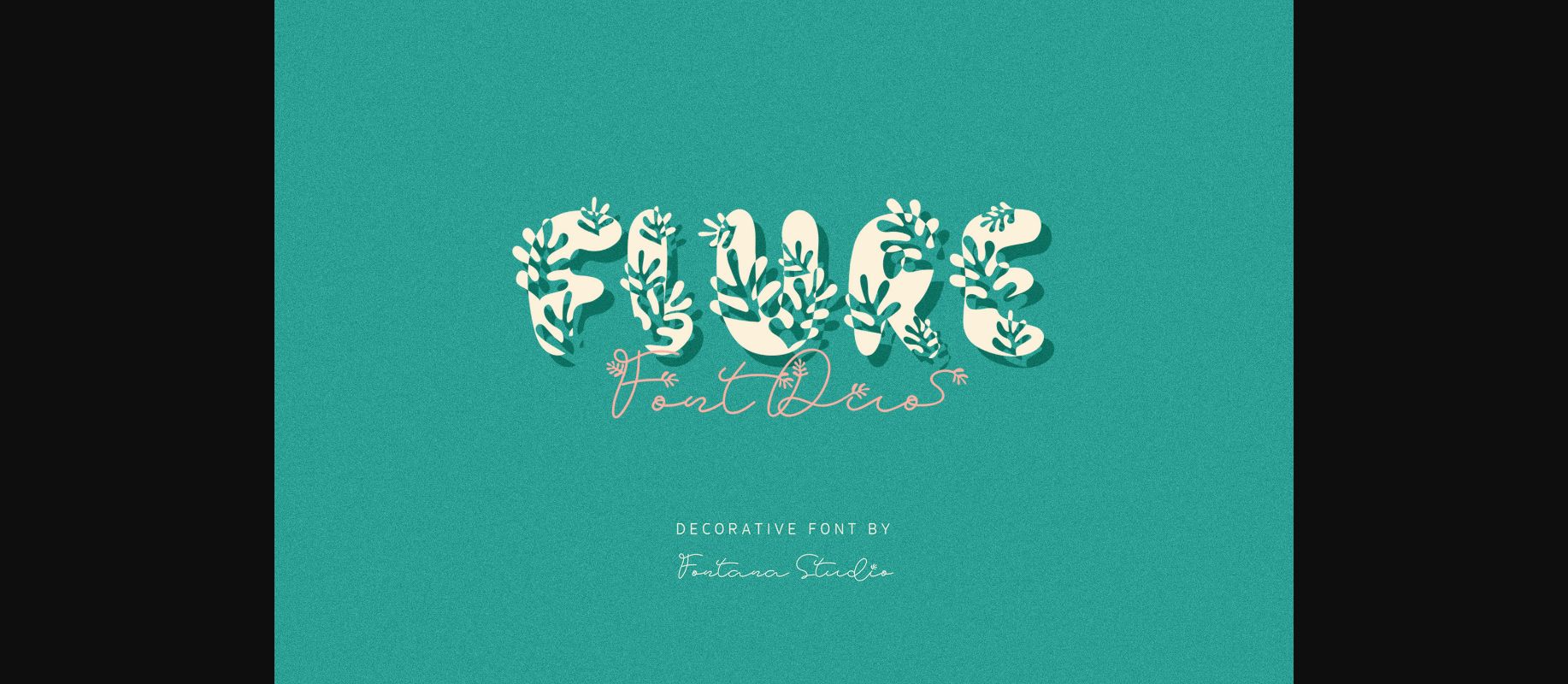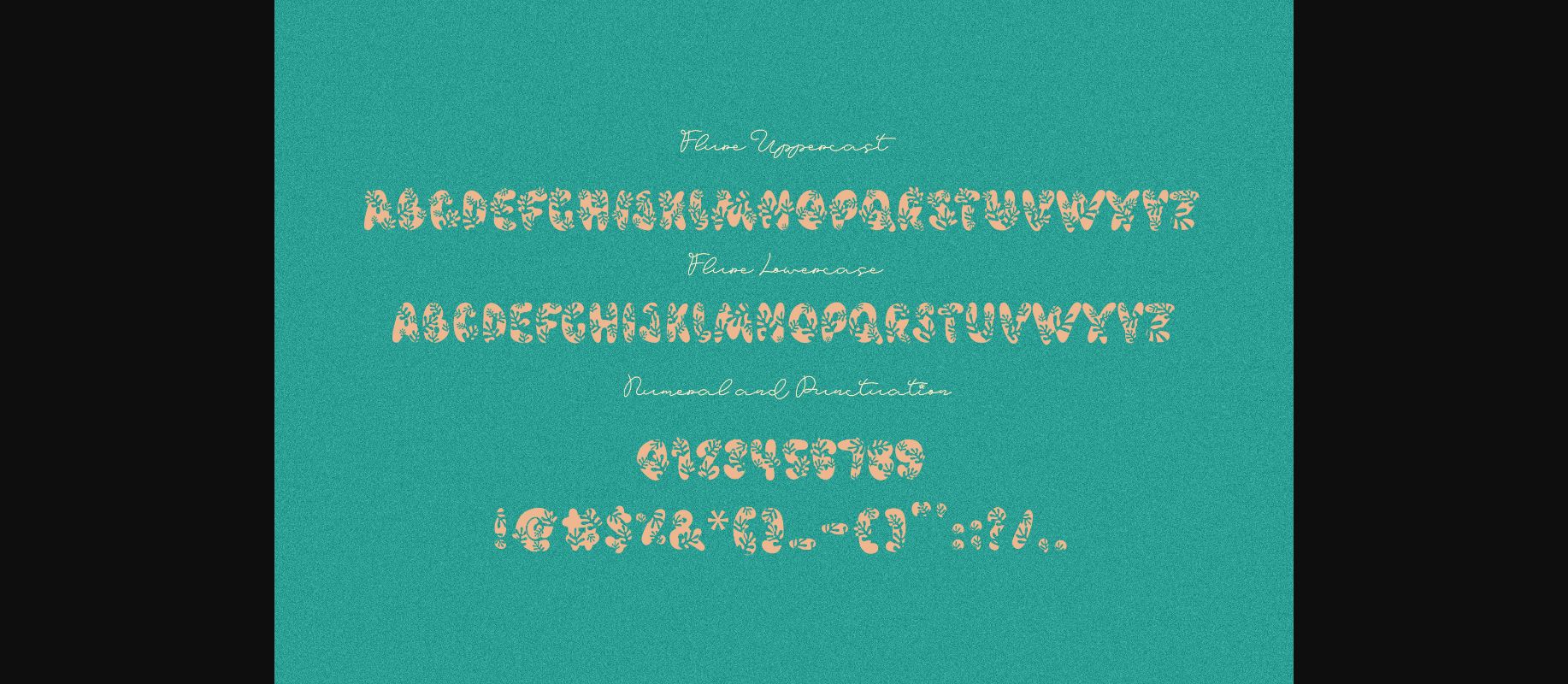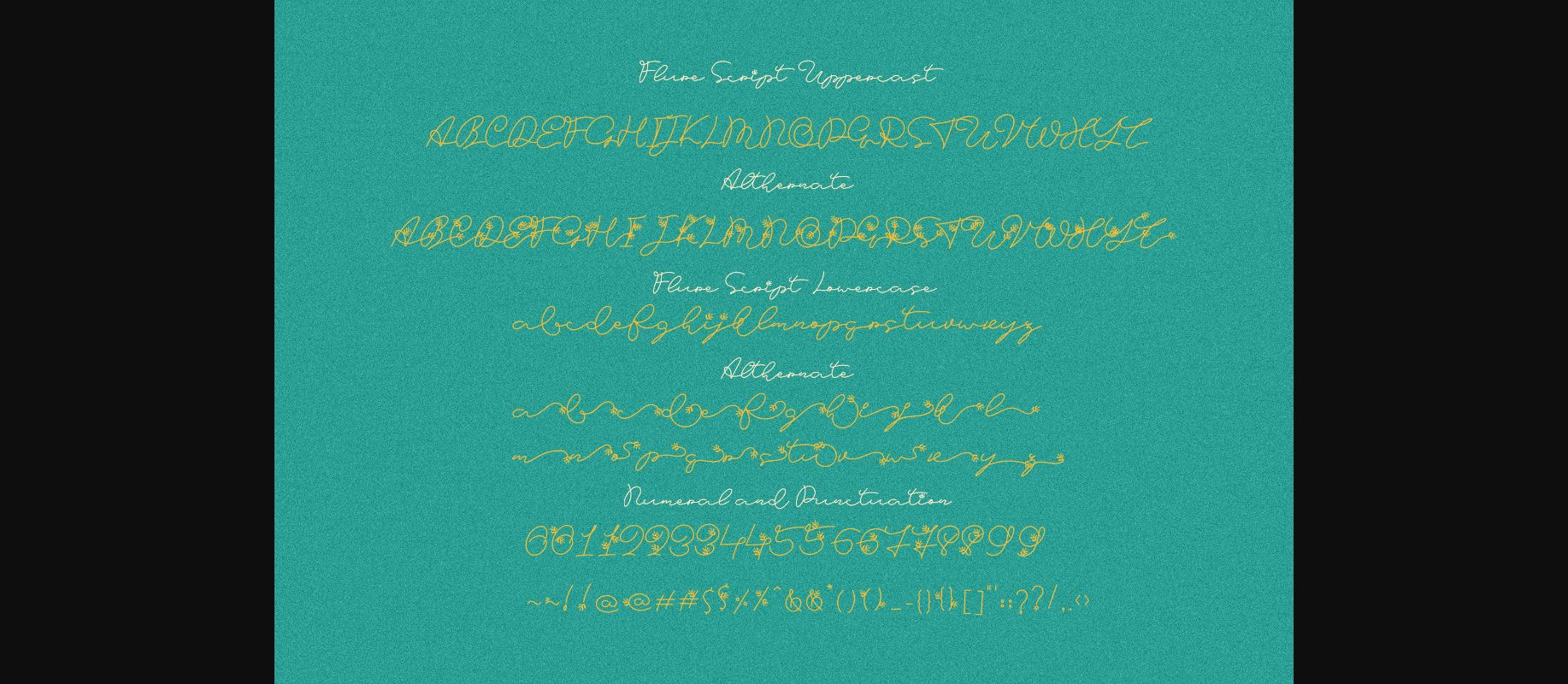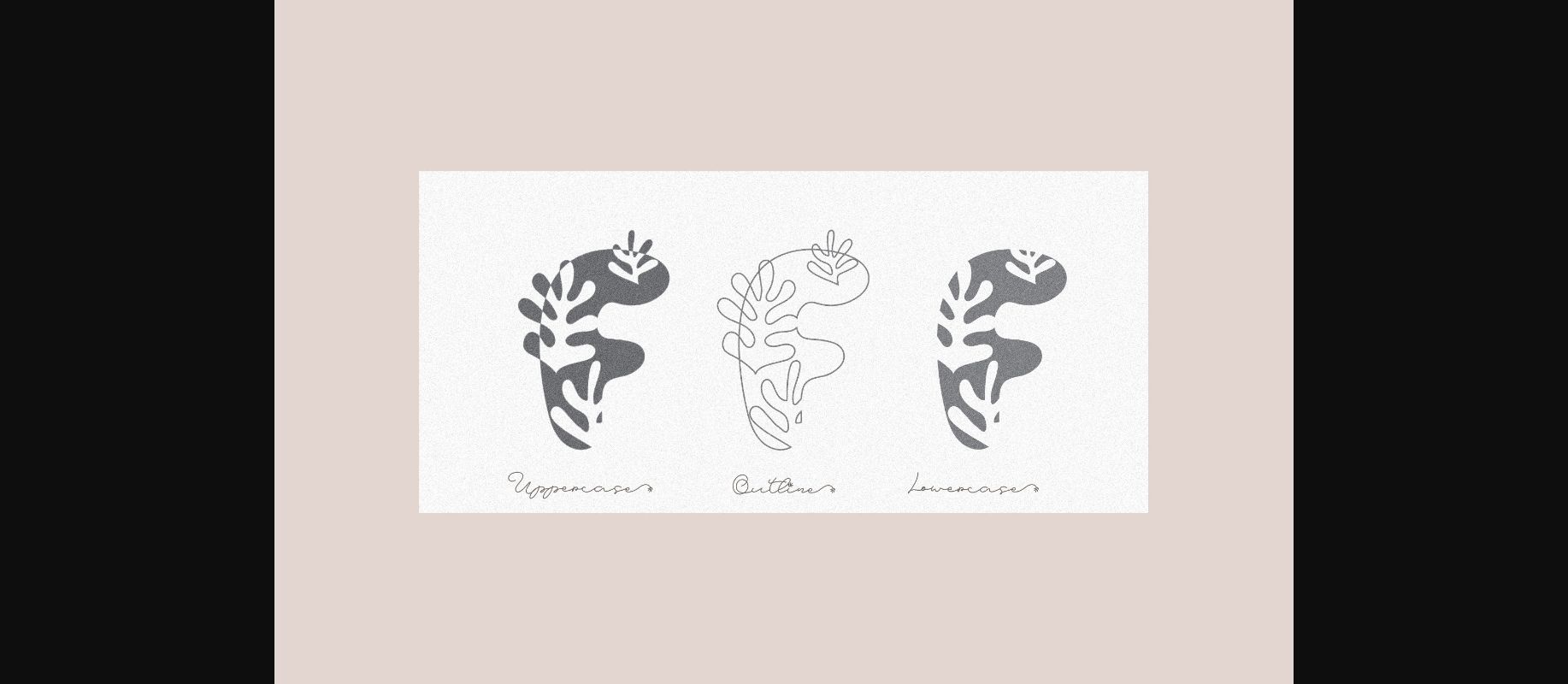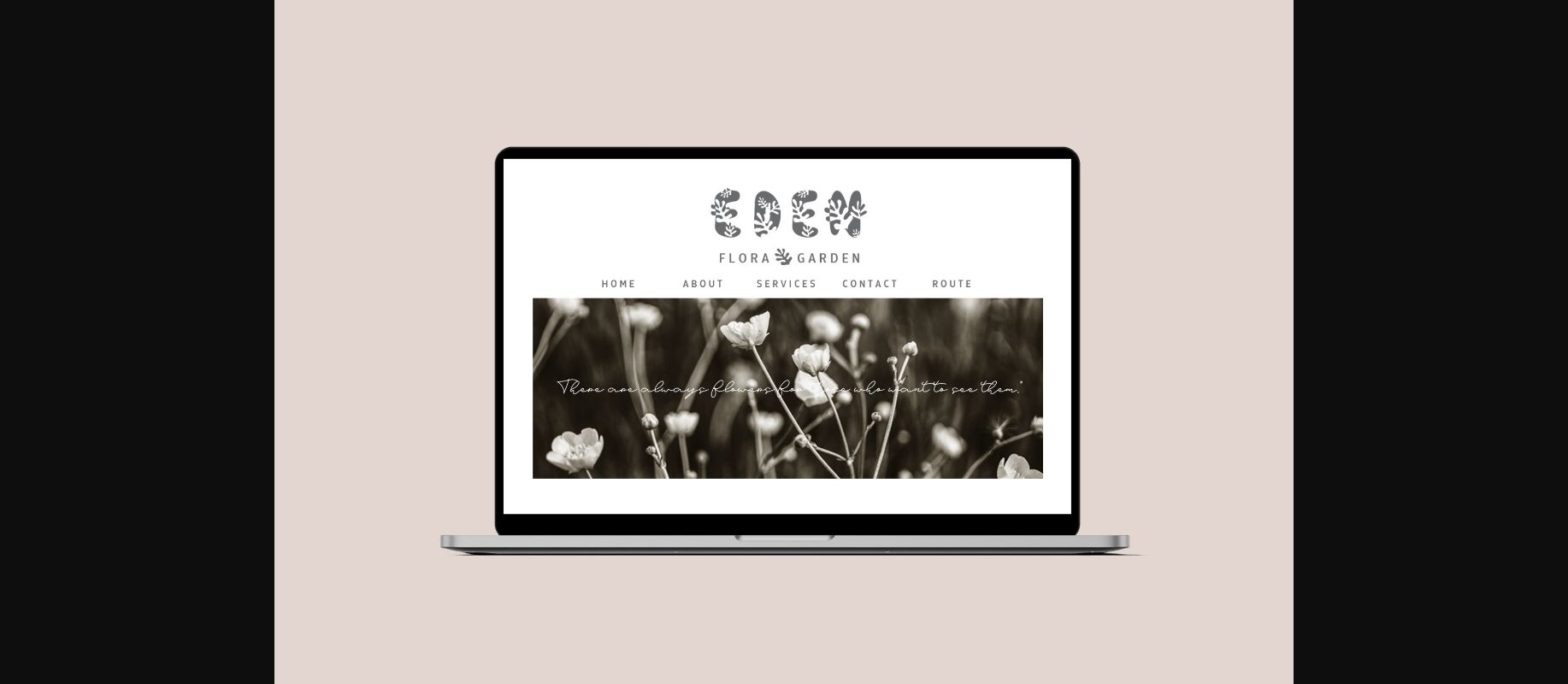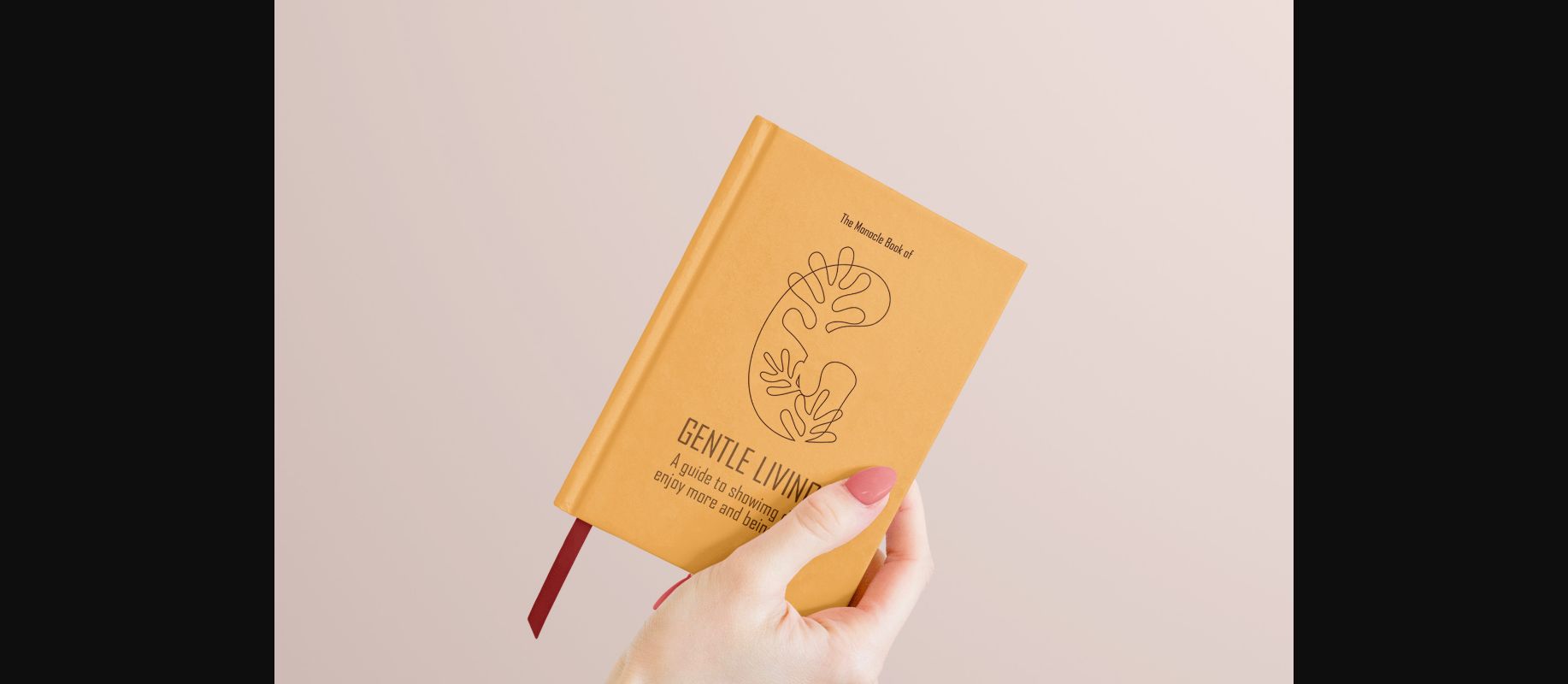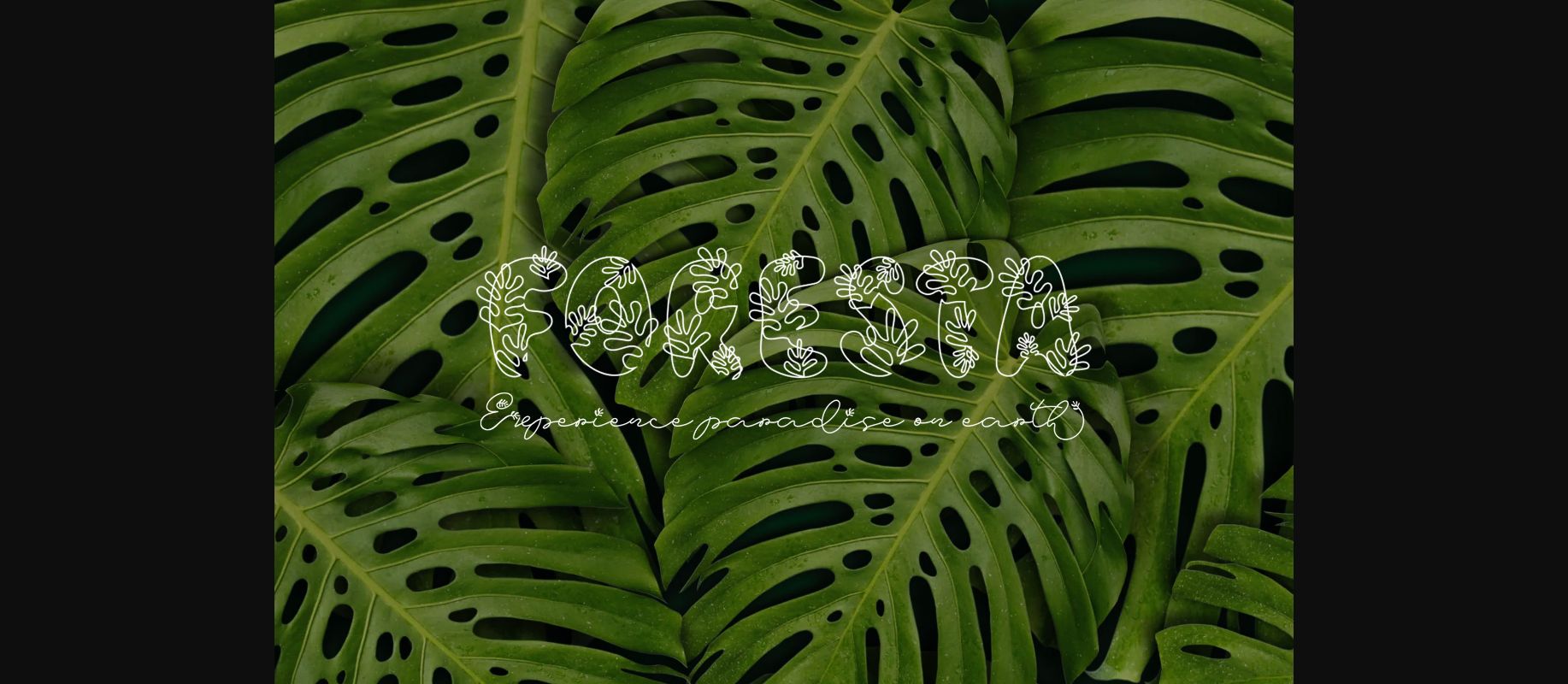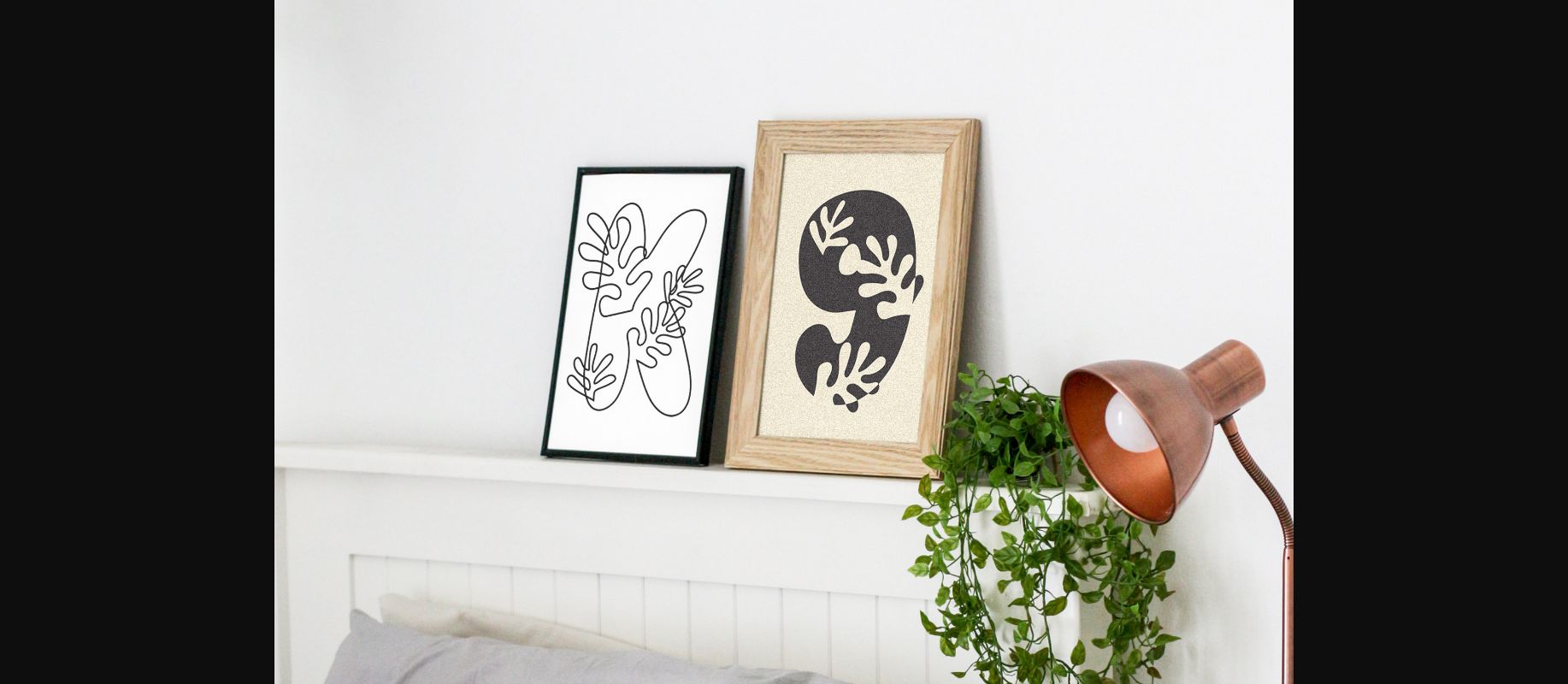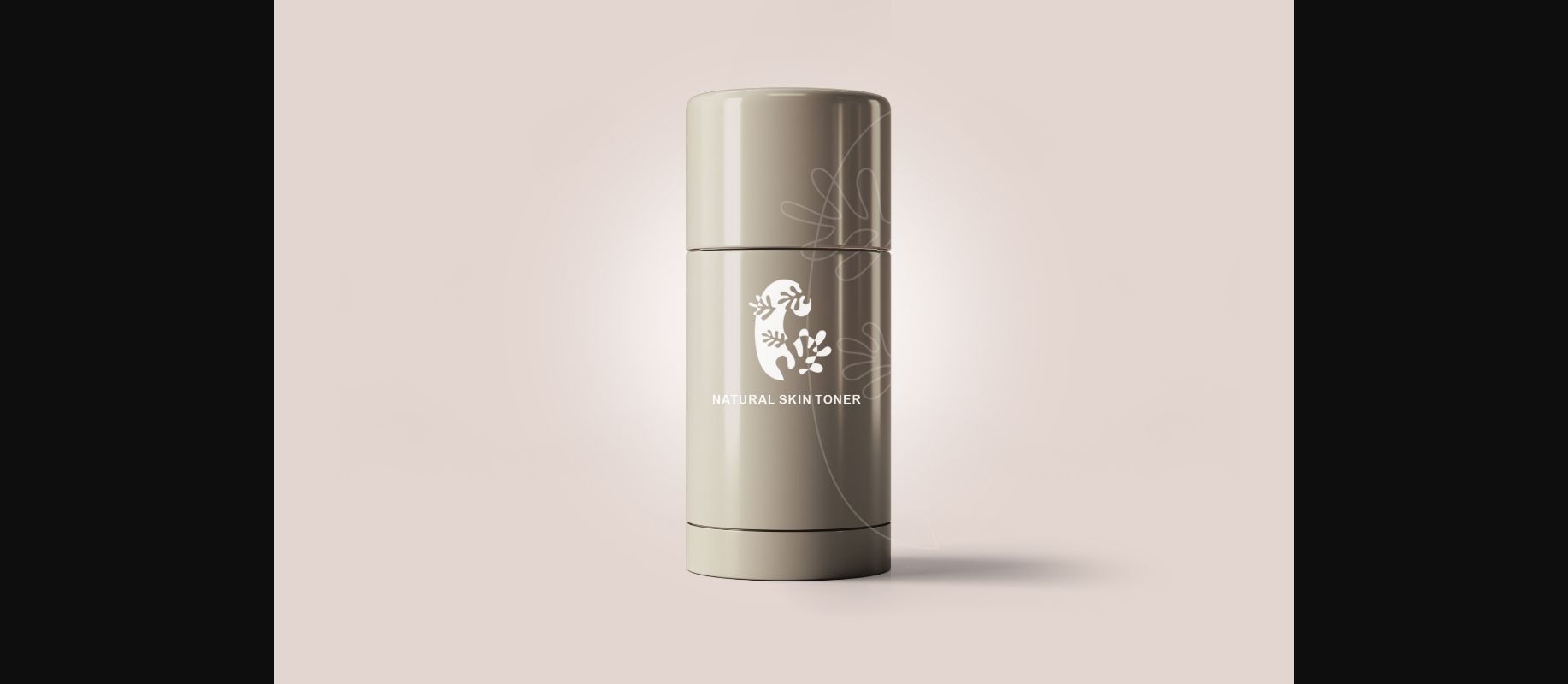
Flure Font
About Flure Font
Flure is a delicate, elegant and flowery duo font (script and decorative). It has beautiful and well balanced characters and as a result, it matches a wide pool of designs. This font is PUA encoded which means you can access all of the glyphs and swashes with ease!